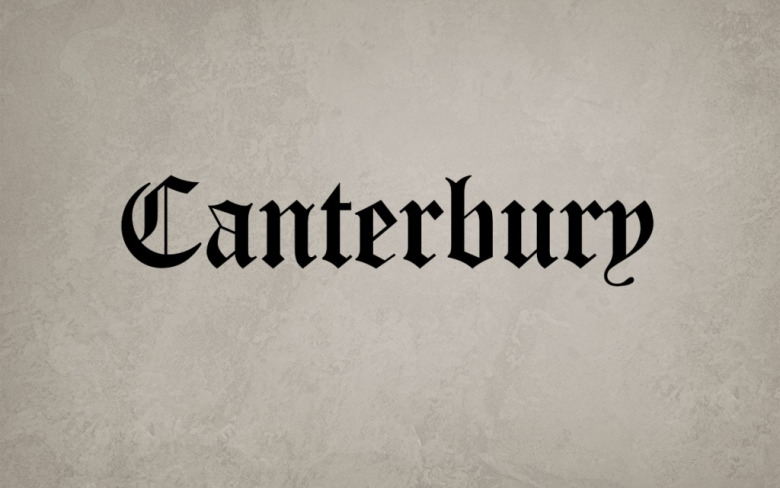
Canterbury Font
Canterbury is a perfect high quality Blackletter font designed by Typographer Mediengestaltung and it is free to download free personal & commercial use. It actually comes with all caps, small caps, old style numbers, stylistic sets, a suite of discretionary ligatures, and even a small set of special characters for the free version.